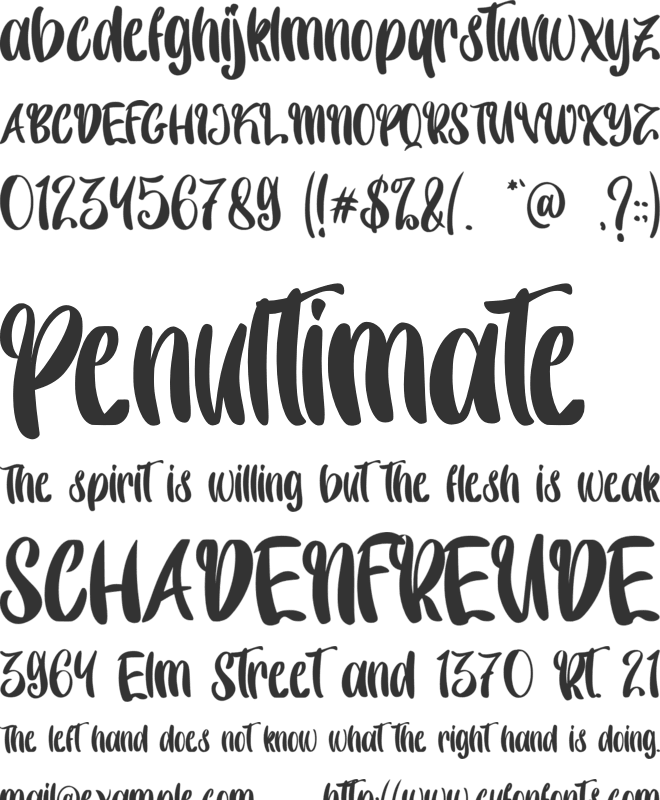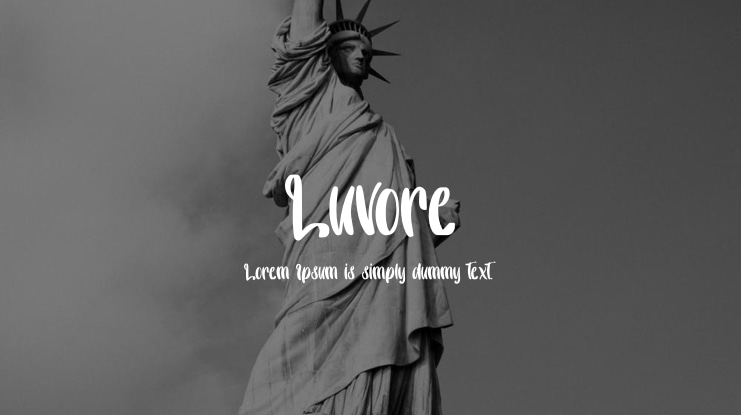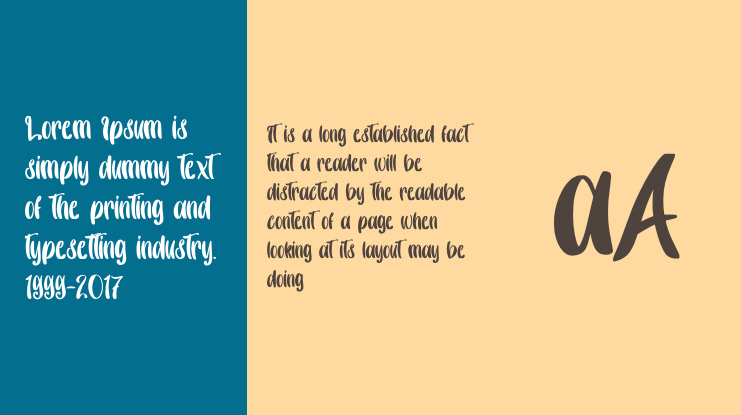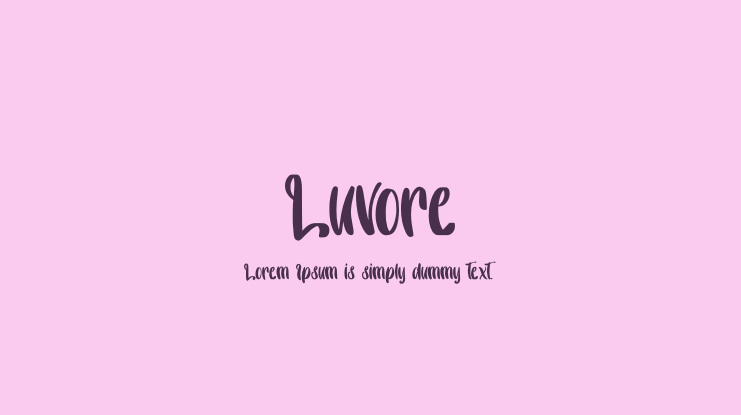
Luvore Font
Luvore is a handwritten font featuring graceful strokes and a natural flow. It is ideal for invitations, greeting cards, and branding. Its delicate yet stylish design adds a touch of warmth and elegance to creative projects.